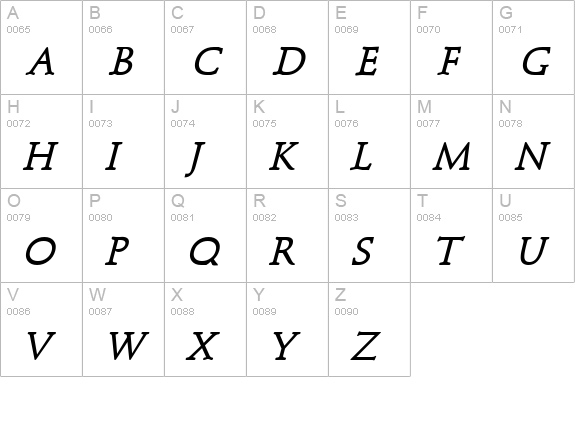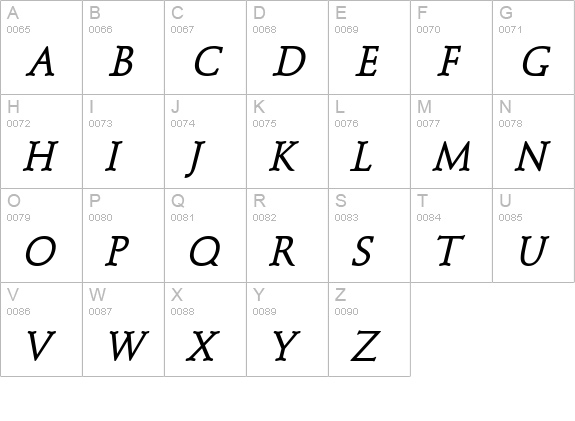
Schroeder Bold Italic is a strong, high-contrast, italic variant in the Schroeder typeface family \xE2\x80\x94 well suited to headlines, attention-grabbing titles, and strong calls-to-action.
Introducing Schroeder Bold Italic, a striking and elegant font that combines the boldness of its weight with the stylish flair of its italics. This versatile typeface is perfect for adding a touch of sophistication and modernity to any design project. Whether you're creating eye-catching headlines, designing impactful logos, or crafting attention-grabbing promotional materials, Schroeder Bold Italic is sure to captivate your audience. With its clean and crisp letterforms, Schroeder Bold Italic exudes confidence and professionalism. Its bold strokes command attention, while the italicized slant adds a touch of dynamism and movement. This font strikes the perfect balance between boldness and elegance, making it an ideal choice for a wide range of creative applications. But what sets Schroeder Bold Italic apart is not just its impeccable design, but also its accessibility. As a free font, it is readily available to download at FontsMarket.com. This means that you can effortlessly incorporate this stunning typeface into your projects without any cost. Say goodbye to expensive font licenses and hello to the freedom of creativity. Whether you're a professional designer, a student, or simply an enthusiast, Schroeder Bold Italic offers you the opportunity to elevate your designs without breaking the bank. Its availability as a free download ensures that everyone can enjoy the beauty and versatility of this font, making it a valuable addition to any font library. So why wait? Embrace the boldness and elegance of Schroeder Bold Italic today. Download it for free at FontsMarket.com and unlock a world of creative possibilities. From branding and advertising to invitations and packaging, this font will undoubtedly make a lasting impression. Don't miss out on this incredible opportunity to enhance your designs with a font that combines style, versatility, and accessibility.